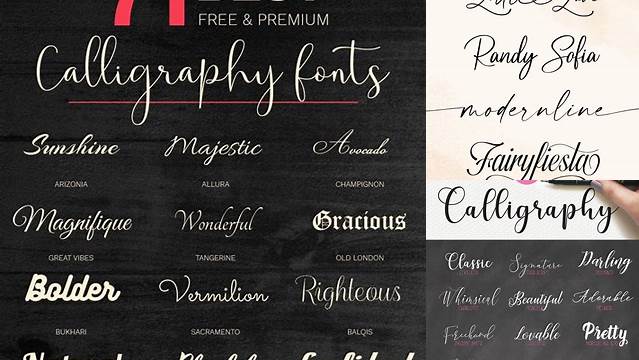
Elegant Text: Best Calligraphy Fonts Generator
Calligraphy, the art of beautiful writing, has captivated people for centuries. In today's digital age, the allure of handcrafted lettering remains strong, and finding the best calligraphy fonts generator is crucial for designers, hobbyists, and anyone seeking to add an elegant touch to their projects. Whether you are creating wedding invitations, designing logos, or simply experimenting with typography, a good calligraphy font can elevate your work. This guide explores everything you need to know about calligraphy fonts generator, from understanding different styles to selecting the right tools and mastering the art of using them effectively.
1. Understanding Calligraphy Font Styles
When diving into the world of calligraphy fonts generator, it’s essential to first understand the diverse range of styles available. Each style carries its unique characteristics and evokes different emotions, making your selection a critical part of your project's overall aesthetic. For instance, script fonts, which mimic traditional handwriting, are perfect for invitations and personal correspondence. On the other hand, more modern calligraphy styles can be used in branding and digital design.
Understanding these styles will help you better leverage the capabilities of any calligraphy fonts generator. It's not just about picking a pretty font; it's about choosing the font that best reflects the message and tone you want to convey. Moreover, being familiar with these styles allows you to provide more specific prompts and parameters when using AI-powered generators, leading to more tailored and satisfactory results. Whether you're aiming for the classic elegance of Copperplate or the contemporary flair of brush lettering, knowing your styles is the first step in mastering the art of calligraphy fonts generator.
2. The Rise of AI in Calligraphy Font Generation
The advent of artificial intelligence has revolutionized numerous creative fields, and calligraphy is no exception. AI-powered calligraphy fonts generator are becoming increasingly sophisticated, offering users the ability to create custom fonts with ease. These tools use machine learning algorithms to analyze vast libraries of existing fonts and handwriting samples, allowing them to generate new fonts that mimic various calligraphy styles.
One of the key advantages of using AI in calligraphy fonts generator is the speed and efficiency it offers. Traditionally, creating a custom calligraphy font would require hours of painstaking work by a skilled designer. However, with AI, you can generate multiple font variations in a matter of minutes. This not only saves time but also allows for greater experimentation and iteration, enabling you to fine-tune your font until it perfectly matches your vision. Additionally, AI-driven tools often come with user-friendly interfaces that make the font generation process accessible to individuals with no prior experience in typography or graphic design.
3. Top Online Calligraphy Fonts Generator Platforms
Navigating the landscape of online calligraphy fonts generator can be overwhelming, given the sheer number of platforms available. To simplify your search, let's highlight some of the top contenders in the market. These platforms stand out due to their user-friendly interfaces, extensive font libraries, and advanced customization options. Some popular choices include Fontjoy, Calligraphr, and FontStruct. Each of these platforms offers a unique set of features, catering to different needs and skill levels.
For instance, Fontjoy excels in pairing fonts, helping you find the perfect calligraphy font to complement your existing designs. Calligraphr, on the other hand, allows you to create a custom font from your own handwriting, adding a personal touch to your projects. FontStruct is a more advanced tool that lets you build fonts from geometric shapes, giving you unparalleled control over the design process. When selecting a calligraphy fonts generator platform, consider factors such as ease of use, the range of available styles, customization options, and pricing. Some platforms offer free trials or basic versions, allowing you to test the waters before committing to a subscription.
4. Free vs. Paid Calligraphy Fonts Generator
One of the first decisions you'll face when exploring calligraphy fonts generator is whether to opt for a free or paid platform. Free generators can be a great starting point, especially if you're on a tight budget or simply want to experiment with different styles. However, they often come with limitations, such as a smaller selection of fonts, fewer customization options, and potential restrictions on commercial use. Paid generators, on the other hand, typically offer a more comprehensive set of features, including a wider range of fonts, advanced customization tools, and the ability to use your fonts for commercial purposes.
When evaluating free vs. paid options, consider the scope and complexity of your projects. If you only need a basic calligraphy font for personal use, a free generator may suffice. However, if you're working on professional design projects or require a high degree of customization, a paid generator is likely the better choice. Additionally, paid generators often provide better customer support and regular updates, ensuring that you have access to the latest features and improvements. Ultimately, the decision depends on your specific needs and budget.
5. How to Choose the Right Calligraphy Font for Your Project
Selecting the right calligraphy font is crucial for the success of your project. The font you choose should not only be aesthetically pleasing but also align with the overall message and tone you want to convey. Consider the context in which the font will be used. For example, a formal wedding invitation calls for a different font than a casual social media post. Think about the legibility of the font, especially when used in smaller sizes or on screens. A beautiful but illegible font is ultimately useless.
Experiment with different fonts and see how they look with your text and design elements. Use a calligraphy fonts generator to preview your text in various fonts and sizes. Pay attention to the details, such as the thickness of the strokes, the spacing between letters, and the overall flow of the font. Also, consider the emotional impact of the font. Does it evoke feelings of elegance, romance, playfulness, or sophistication? Choose a font that resonates with your target audience and reinforces your brand identity.
6. Mastering Customization Options in Calligraphy Fonts Generator
One of the key advantages of using a calligraphy fonts generator is the ability to customize your fonts to suit your specific needs. Most generators offer a range of customization options, allowing you to adjust parameters such as font size, letter spacing, stroke thickness, and slant angle. Mastering these customization options is essential for creating truly unique and personalized fonts. Start by experimenting with different settings and see how they affect the overall look and feel of your font.
Pay attention to the details and make subtle adjustments until you achieve the desired effect. For example, increasing the letter spacing can make a font feel more airy and modern, while decreasing it can create a more dense and traditional look. Adjusting the stroke thickness can make a font appear bolder or more delicate. Also, consider the overall balance and harmony of the font. Ensure that the letters flow smoothly together and that there are no awkward gaps or inconsistencies. By mastering the customization options in your calligraphy fonts generator, you can create fonts that are perfectly tailored to your projects.
7. Calligraphy Fonts Generator for Logo Design
Calligraphy fonts can add a touch of elegance and sophistication to logo designs, making them stand out from the crowd. When using a calligraphy fonts generator for logo design, it's important to choose a font that is both visually appealing and legible. A logo needs to be easily recognizable and memorable, even at small sizes. Consider the brand identity and target audience when selecting a font. A luxury brand may opt for a more ornate and classic calligraphy font, while a modern brand may prefer a cleaner and more minimalist style.
Experiment with different fonts and see how they look with your brand name and other logo elements. Pay attention to the kerning and letter spacing, as these can significantly impact the readability and overall appearance of the logo. Also, ensure that the font is scalable and looks good on various devices and platforms. Use a calligraphy fonts generator to create multiple variations of your logo with different fonts and customizations. Get feedback from others and refine your design until you have a logo that perfectly represents your brand.
8. Calligraphy Fonts Generator for Wedding Invitations
Wedding invitations are a perfect opportunity to showcase the beauty and elegance of calligraphy fonts. Using a calligraphy fonts generator, you can create stunning invitations that set the tone for your special day. When selecting a font for wedding invitations, consider the overall theme and style of your wedding. A traditional wedding may call for a classic and formal calligraphy font, while a modern wedding may opt for a more contemporary and whimsical style. Choose a font that is easy to read and complements the other design elements of the invitation.
Pay attention to the details, such as the paper stock, ink color, and printing method. Experiment with different fonts and see how they look with your names, dates, and other information. Use a calligraphy fonts generator to create multiple versions of your invitation with different fonts and customizations. Get feedback from your partner and wedding planner, and refine your design until you have an invitation that you both love.
9. Calligraphy Fonts Generator for Social Media Graphics
In the fast-paced world of social media, eye-catching graphics are essential for capturing attention and engaging your audience. Calligraphy fonts can add a touch of personality and flair to your social media posts, making them stand out from the crowd. When using a calligraphy fonts generator for social media graphics, it's important to choose a font that is both visually appealing and legible on small screens. Consider the platform on which you'll be posting and the overall aesthetic of your brand.
Experiment with different fonts and see how they look with your text and images. Use bold and contrasting colors to make your text pop. Also, consider the overall message and tone of your post. A fun and playful post may call for a different font than a serious and informative post. Use a calligraphy fonts generator to create multiple versions of your graphics with different fonts and customizations. Test your graphics on different devices and platforms to ensure that they look good everywhere.
10. Enhancing Readability with Calligraphy Fonts Generator
While calligraphy fonts are known for their beauty and elegance, readability is still a crucial factor to consider. A beautifully designed font is useless if it's difficult to read. When using a calligraphy fonts generator, pay attention to the legibility of the fonts you choose. Consider the size and spacing of the letters, as well as the overall flow of the font. Avoid fonts that are too ornate or have overly complex details, as these can be difficult to read, especially in smaller sizes.
Experiment with different font sizes and colors to see what works best for your project. Use a calligraphy fonts generator to preview your text in various fonts and sizes. Get feedback from others and ask them if they find the text easy to read. If necessary, make adjustments to the font or layout to improve readability. Remember, the goal is to create a design that is both visually appealing and easy to understand.
11. Calligraphy Fonts Generator and Branding
A calligraphy fonts generator is a great asset in branding, as fonts play a crucial role in establishing a brand's identity and communicating its values. The right font can convey a sense of elegance, sophistication, or playfulness, depending on the brand's personality. When using a calligraphy font for branding purposes, it's important to choose a font that aligns with the brand's overall aesthetic and target audience. A luxury brand may opt for a more ornate and classic calligraphy font, while a modern brand may prefer a cleaner and more minimalist style.
Ensure that the font is legible and scalable, as it will be used in various contexts, from logos to marketing materials. Consistency is key when it comes to branding, so choose a font that you can use across all your brand touchpoints. Use a calligraphy fonts generator to experiment with different fonts and find one that perfectly captures your brand's essence. Get feedback from your team and target audience to ensure that the font resonates with them.
12. The Future of Calligraphy Fonts Generator
As technology continues to evolve, the future of calligraphy fonts generator looks promising. AI-powered generators are becoming increasingly sophisticated, offering users more control and customization options. We can expect to see even more advanced features in the future, such as the ability to generate fonts based on specific handwriting samples or to create fonts that adapt dynamically to different contexts. Virtual reality and augmented reality technologies may also play a role, allowing designers to create and manipulate fonts in a more immersive and intuitive way.
Additionally, the rise of blockchain technology could lead to new models for font licensing and distribution, making it easier for designers to protect their intellectual property and monetize their creations. The calligraphy fonts generator of the future will likely be more accessible, powerful, and versatile than ever before, empowering designers and creatives to push the boundaries of typography and create truly unique and innovative designs.
13. Calligraphy Fonts Generator for Beginners
If you're new to the world of calligraphy and font design, don't be intimidated. Calligraphy fonts generator can be a great way to learn the basics and experiment with different styles. Start by exploring the various online platforms and try out some of the free generators. Look for tutorials and guides that can help you understand the different elements of calligraphy and typography. Experiment with different fonts, sizes, and colors to see what you like.
Don't be afraid to make mistakes, as this is part of the learning process. As you gain more experience, you can start to explore more advanced tools and techniques. Consider taking a calligraphy class or workshop to learn from experienced instructors. With practice and patience, you can master the art of calligraphy and create beautiful and unique fonts using a calligraphy fonts generator.
14. Advanced Techniques in Calligraphy Fonts Generator
Once you've mastered the basics of using a calligraphy fonts generator, you can start to explore more advanced techniques. This includes things like creating custom ligatures, adjusting kerning and letter spacing, and adding stylistic flourishes. Ligatures are special characters that combine two or more letters into a single glyph, adding a touch of elegance and sophistication to your fonts. Kerning refers to the spacing between individual letters, while letter spacing refers to the overall spacing between all letters in a word.
Adjusting these parameters can significantly impact the readability and overall appearance of your fonts. Stylistic flourishes are decorative elements that can be added to letters to enhance their visual appeal. Experiment with different techniques and see how they affect the overall look and feel of your fonts. Use a calligraphy fonts generator to preview your text in various styles and customizations. Get feedback from others and refine your designs until you have fonts that are truly unique and eye-catching.
15. Integrating Calligraphy Fonts Generator with Design Software
To maximize the potential of your calligraphy fonts generator, it's important to integrate it with your favorite design software. Most generators allow you to export your fonts in various formats, such as OTF or TTF, which can then be imported into programs like Adobe Photoshop, Illustrator, or InDesign. This allows you to use your custom fonts in a wide range of design projects, from logos and branding materials to wedding invitations and social media graphics.
When integrating your fonts with design software, pay attention to the settings and options available. Adjust the font size, color, and spacing to achieve the desired effect. Experiment with different blending modes and effects to create unique and eye-catching designs. Also, ensure that your fonts are properly embedded in your design files to avoid any issues when sharing or printing your work.
16. Troubleshooting Common Issues with Calligraphy Fonts Generator
While calligraphy fonts generator are generally user-friendly, you may encounter some common issues from time to time. One common issue is font compatibility, where a font may not display correctly on certain devices or platforms. To avoid this, make sure to use standard font formats like OTF or TTF and test your fonts on different devices and browsers. Another common issue is font licensing, where you may not have the right to use a font for commercial purposes.
Always check the licensing terms before using a font in a commercial project. If you encounter any other issues, consult the documentation or support resources provided by the calligraphy fonts generator platform. You can also try searching online for solutions or asking for help in design forums or communities. With a little bit of troubleshooting, you can overcome most common issues and get your calligraphy fonts working perfectly.
17. Calligraphy Fonts Generator and Web Design
In web design, calligraphy fonts can add a touch of elegance and sophistication to your site. When using a calligraphy fonts generator for web design, it's crucial to ensure that the fonts are web-optimized for fast loading times and cross-browser compatibility. Use font formats like WOFF or WOFF2, which are specifically designed for web use. Also, consider using a font hosting service like Google Fonts or Adobe Fonts, which provides a wide range of web-optimized calligraphy fonts.
When selecting a font, make sure it's legible and readable on screens of different sizes. Use CSS to control the font size, color, and spacing. Test your website on different devices and browsers to ensure that the fonts display correctly. Also, be mindful of accessibility. Provide alternative text for images containing calligraphy fonts and ensure that your website is usable by people with disabilities.
18. Ethical Considerations When Using Calligraphy Fonts Generator
When using a calligraphy fonts generator, it's important to consider the ethical implications of your work. Always respect the intellectual property rights of font designers and creators. Do not use fonts without proper licensing or permission, especially for commercial purposes. If you're using a free font, make sure to check the licensing terms and comply with any restrictions. If you're using a paid font, make sure to purchase a license that covers your intended use.
Also, be mindful of cultural sensitivities when using calligraphy fonts. Certain fonts may have historical or cultural significance, and it's important to use them respectfully and appropriately. Avoid using fonts in a way that could be offensive or disrespectful to any group or community. By being mindful of these ethical considerations, you can ensure that your use of calligraphy fonts generator is responsible and respectful.
19. Optimizing Calligraphy Fonts Generator for Mobile Devices
With the majority of web traffic coming from mobile devices, optimizing calligraphy fonts for mobile is essential. When using a calligraphy fonts generator for mobile design, make sure to choose fonts that are legible and readable on small screens. Avoid fonts that are too ornate or have overly complex details, as these can be difficult to read on mobile devices. Use responsive design techniques to ensure that your fonts scale properly on different screen sizes.
Also, consider using variable fonts, which allow you to adjust the font weight, width, and other parameters dynamically, depending on the screen size and resolution. Test your designs on different mobile devices to ensure that the fonts display correctly. Also, be mindful of performance. Optimize your fonts for fast loading times, as slow-loading fonts can negatively impact the user experience on mobile devices.
20. The Impact of Calligraphy Fonts Generator on Traditional Calligraphy
Some may argue that calligraphy fonts generator diminish the value of traditional calligraphy. However, these tools can also serve as a gateway for people to appreciate and learn the art form. While digital generators offer convenience, traditional calligraphy requires skill, patience, and practice. Instead of replacing traditional calligraphy, these generators can complement it, providing a digital option for those who may not have the time or resources to learn the traditional methods.
They can also be used as a tool for calligraphers to experiment with different styles and create digital versions of their work. Ultimately, the impact of calligraphy fonts generator on traditional calligraphy depends on how they are used and perceived. When used responsibly and ethically, they can enhance and promote the art of calligraphy, rather than diminish it.
21. Calligraphy Fonts Generator and Digital Art
Calligraphy fonts generator are fantastic tools for digital artists. They open a realm of possibilities, allowing artists to integrate unique and elegant typography into their digital creations. Whether you're designing digital posters, creating social media content, or working on more complex digital art projects, calligraphy fonts can add a personal and artistic touch.
By using a calligraphy fonts generator, artists can quickly experiment with different styles and find the perfect font to complement their artwork. They can also customize the fonts to match the overall aesthetic of their designs, creating a cohesive and visually appealing final product. The ability to easily integrate calligraphy fonts into digital art workflows has made these generators an indispensable tool for many digital artists.
22. How to Make Money with Calligraphy Fonts Generator
If you're skilled at using a calligraphy fonts generator, there are several ways you can monetize your creations. One option is to sell your custom fonts on online marketplaces like Creative Market or Etsy. You can also offer your services as a font designer, creating custom fonts for businesses and individuals. Another option is to create and sell digital products that incorporate your calligraphy fonts, such as templates, graphics, or ebooks.
Additionally, you can offer online courses or workshops teaching others how to use calligraphy fonts generator. By leveraging your skills and creativity, you can turn your passion for calligraphy into a profitable business. Remember to market your services and products effectively, and build a strong online presence to attract customers.
23. Calligraphy Fonts Generator and Accessibility
While calligraphy fonts are often admired for their aesthetic appeal, it's important to consider accessibility when using them. Not all calligraphy fonts are easily readable, especially for people with visual impairments or learning disabilities. When using a calligraphy fonts generator, choose fonts that are clear and legible. Avoid fonts that are too ornate or have overly complex details.
Ensure that the font size is large enough and that there is sufficient contrast between the text and background colors. You can also use tools to check the accessibility of your fonts and designs. By considering accessibility, you can ensure that your calligraphy fonts are usable by everyone, regardless of their abilities. Remember, good design is inclusive design.
24. Calligraphy Fonts Generator and E-commerce
In e-commerce, using a calligraphy fonts generator can significantly enhance your brand's visual appeal. From designing logos to creating marketing materials, calligraphy fonts can add a touch of elegance and sophistication to your online store. Use calligraphy fonts to highlight special offers, announce new products, or create visually appealing product descriptions.
Ensure that the fonts you choose are legible and readable on different devices. Also, consider the overall aesthetic of your brand and choose fonts that align with your brand's personality. By using calligraphy fonts strategically, you can create a more engaging and visually appealing shopping experience for your customers. Remember to test your designs on different devices and browsers to ensure that they display correctly.
25. Calligraphy Fonts Generator and Print Design
Calligraphy fonts generator are invaluable for print design projects. Whether you're creating brochures, posters, or business cards, calligraphy fonts can add a touch of sophistication and elegance to your printed materials. When using a calligraphy fonts generator for print design, it's important to choose fonts that are optimized for printing. Use high-resolution fonts and ensure that the colors are accurate.
Consider the paper stock and printing method when selecting a font. Experiment with different fonts, sizes, and colors to see what looks best. Remember to proofread your designs carefully before printing to avoid any errors. By using calligraphy fonts effectively, you can create print designs that are both visually appealing and professional.
26. Legal Aspects of Using Calligraphy Fonts Generator
Navigating the legal aspects of using a calligraphy fonts generator is crucial to avoid copyright infringement. When creating and using fonts generated by these tools, it's essential to understand the licensing terms associated with the fonts. Many calligraphy fonts generator offer fonts under different licenses, some of which may restrict commercial use. Always review the license agreement carefully before using a font in a commercial project.
If you're creating your own fonts using a generator, be aware that the resulting fonts may still be subject to copyright laws, especially if they closely resemble existing fonts. It's advisable to create unique designs that don't infringe on existing copyrights. Additionally, if you plan to sell or distribute fonts created with a calligraphy fonts generator, consult with a legal professional to ensure compliance with all applicable laws and regulations.
27. Calligraphy Fonts Generator for Book Covers
Designing a book cover that captures the essence of the story is vital, and a calligraphy fonts generator can be an excellent tool for achieving this. Calligraphy fonts can add a touch of elegance, mystery, or romance to your book cover, depending on the genre and theme of the book. When selecting a font for your book cover, consider the target audience and the overall message you want to convey.
Ensure that the font is legible and readable, even at small sizes. Experiment with different fonts and colors to see what looks best. Consider the placement of the font and how it interacts with other design elements on the cover. A well-designed book cover with a carefully chosen calligraphy font can attract readers and increase sales.
28. Combining Multiple Calligraphy Fonts Generator Styles
For a unique and dynamic design, consider combining multiple calligraphy font styles. A calligraphy fonts generator makes it easy to experiment with different fonts and create visually interesting compositions. When combining fonts, it's important to choose fonts that complement each other and create a harmonious look. Use one font for headings and another for body text.
Consider the contrast between the fonts and make sure they are legible and readable. Experiment with different sizes, weights, and colors to create visual interest. Use a calligraphy fonts generator to preview your designs and see how the fonts look together. Combining font styles can add depth and personality to your designs, making them stand out from the crowd.
29. The Psychology of Calligraphy Fonts Generator
Calligraphy fonts can evoke specific emotions and perceptions, making them a powerful tool in visual communication. The psychology of calligraphy fonts involves understanding how different styles influence the viewer's feelings and associations. For instance, elegant and flowing calligraphy fonts may evoke feelings of luxury and sophistication, making them suitable for high-end brands.
On the other hand, more whimsical and playful calligraphy fonts may evoke feelings of fun and creativity, making them ideal for children's products or creative projects. When using a calligraphy fonts generator, consider the psychological impact of the fonts you choose and how they align with your intended message. By understanding the psychology of calligraphy fonts, you can create designs that resonate with your target audience on an emotional level.
30. Future Trends in Calligraphy Fonts Generator Technology
The future of calligraphy fonts generator technology looks incredibly promising, with several exciting trends on the horizon. One trend is the increasing integration of artificial intelligence (AI) to enhance font creation and customization. AI-powered generators will be able to analyze user preferences and generate fonts that perfectly match their unique style. Another trend is the development of more sophisticated and user-friendly interfaces, making it easier for anyone to create beautiful calligraphy fonts.
Additionally, we can expect to see more collaboration features, allowing designers to work together on font projects in real-time. Variable fonts, which allow for dynamic adjustments to font weight, width, and other parameters, will also become more prevalent. These future trends will empower designers and creatives to push the boundaries of typography and create truly innovative and personalized designs with calligraphy fonts generator.